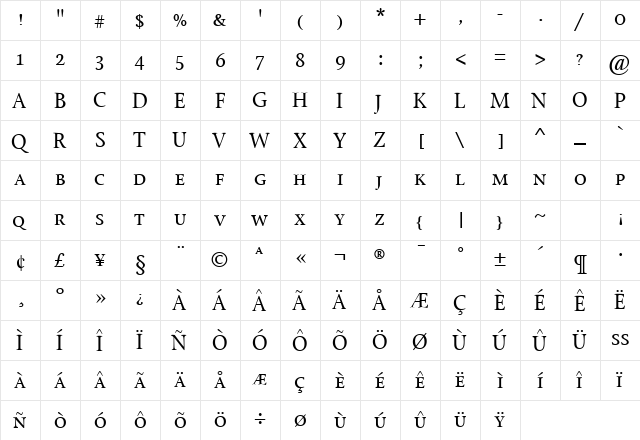
StonePrintSmallCaps Regular
Design Context for StonePrintSmallCaps Typeface
StonePrintSmallCaps offers clean, dependable letterforms without strong stylistic allegiance, making it a practical choice for designers who need flexibility.
Pro Tip: Use StonePrintSmallCaps in both headline and body roles to test its range before committing to a single application.